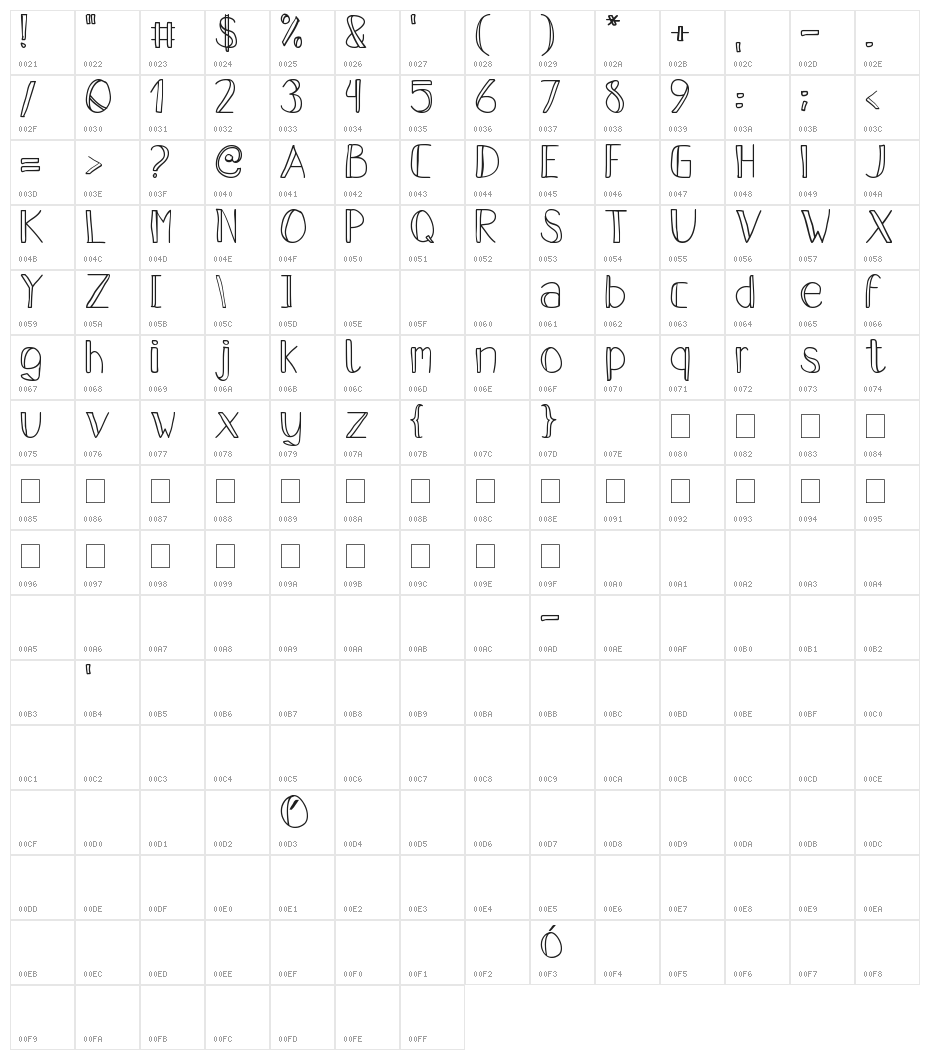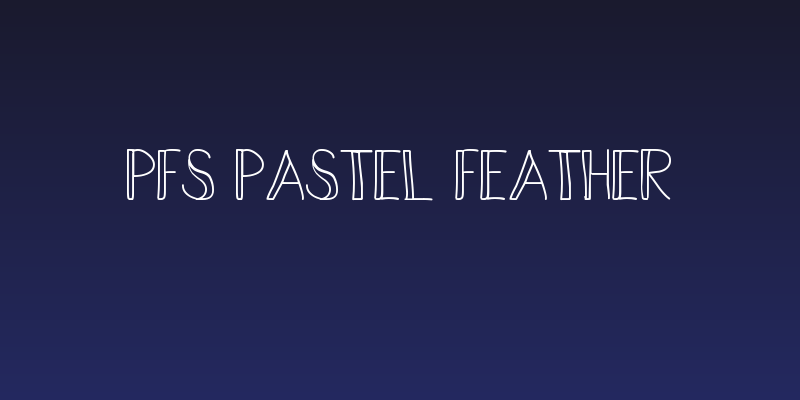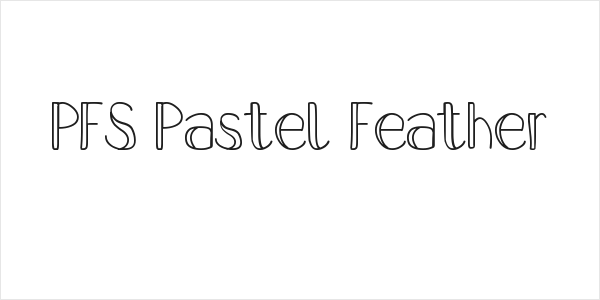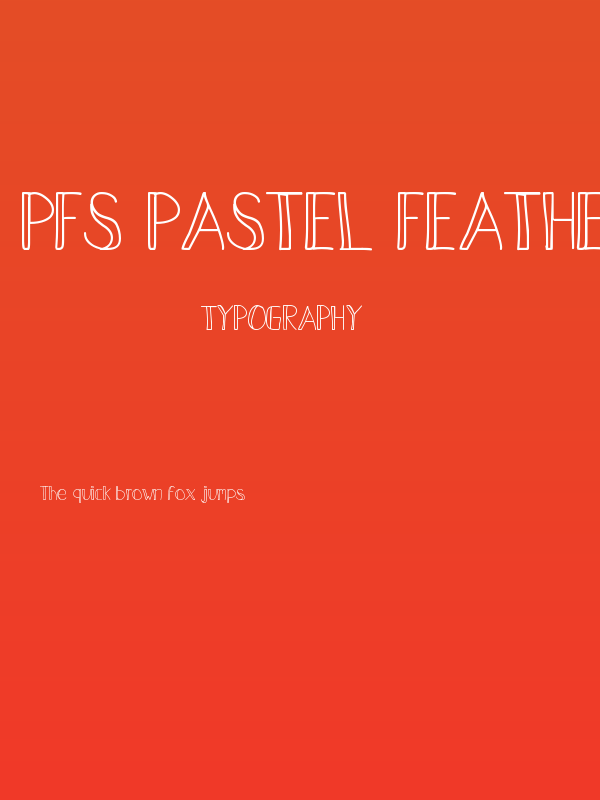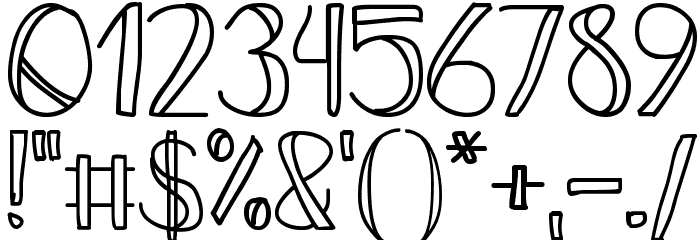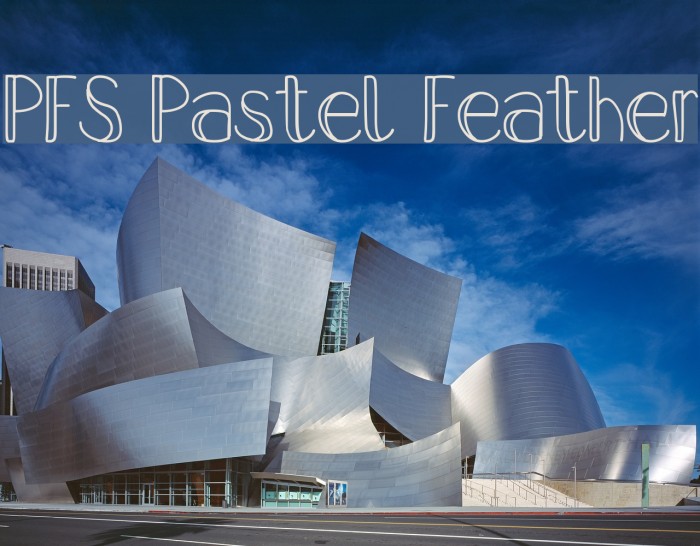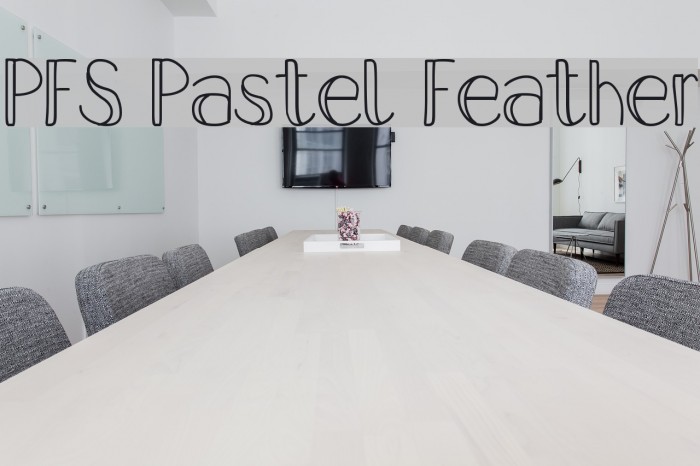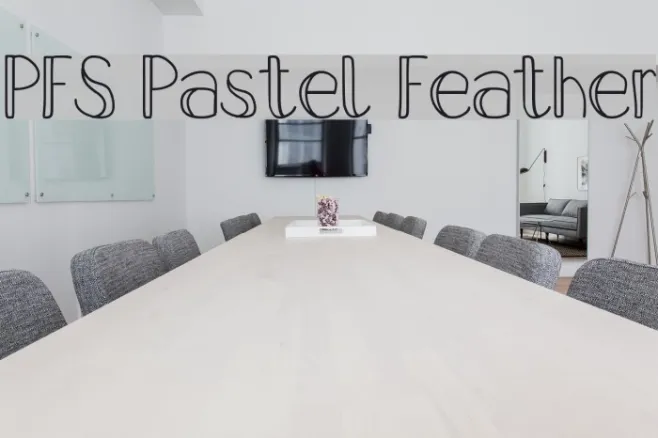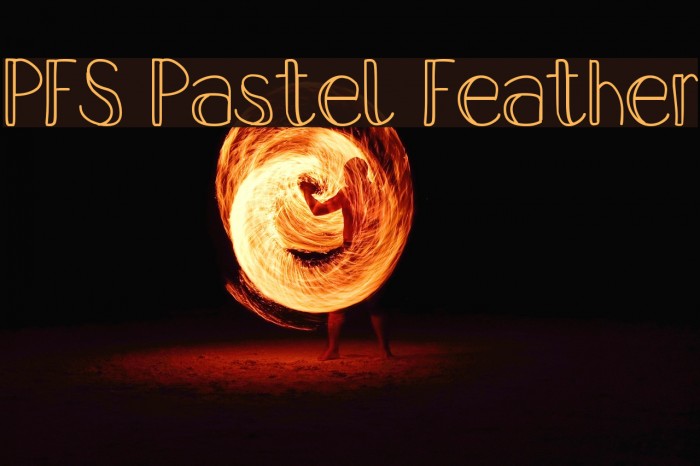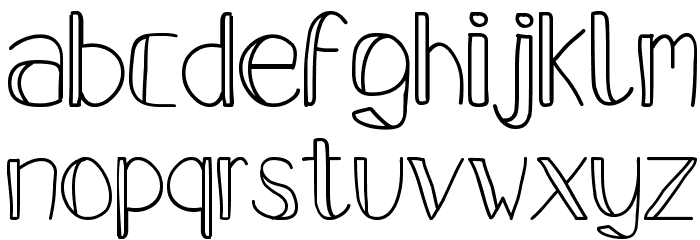
PFS Pastel Feather Font
PFS Pastel Feather Description
This font features a playful and whimsical design with a hand-drawn aesthetic. The characters are elongated and slightly irregular, giving them a unique and artistic flair. The strokes are thin and consistent, contributing to a light and airy feel. Each letter maintains a distinct individuality while still harmonizing with the overall style. The numerals and special characters follow the same design principles, ensuring a cohesive look across all elements. This font is ideal for projects that require a touch of creativity and personality.
| Proposed Projects | Great for children's books, creative branding, greeting cards, and artistic posters. |